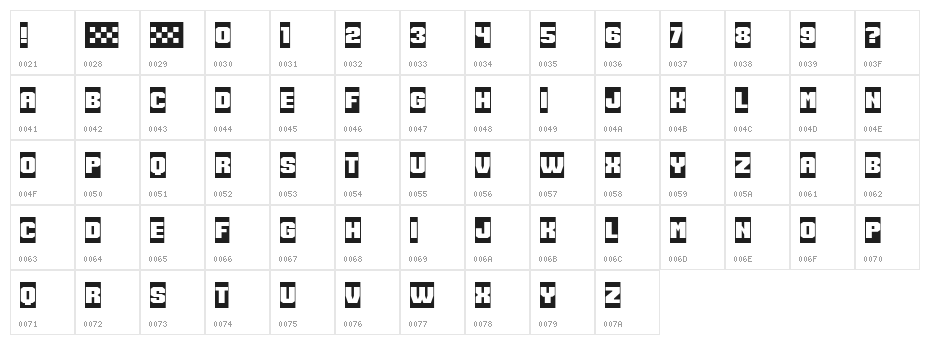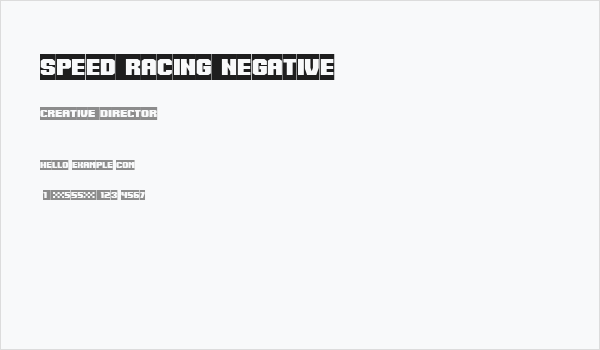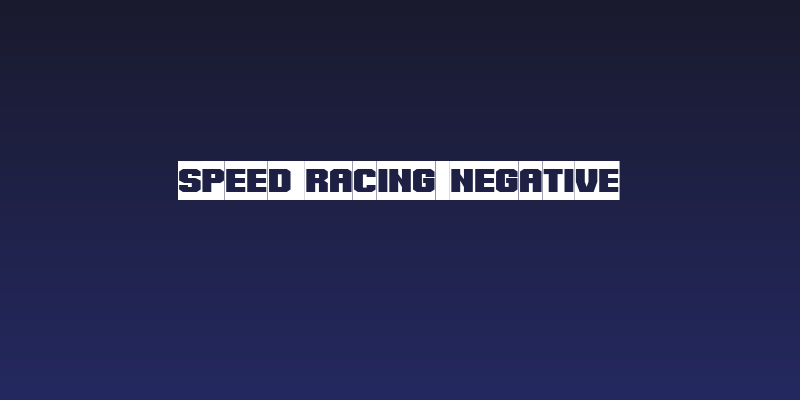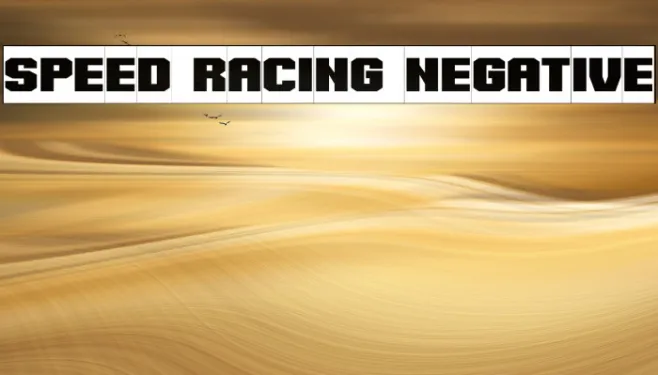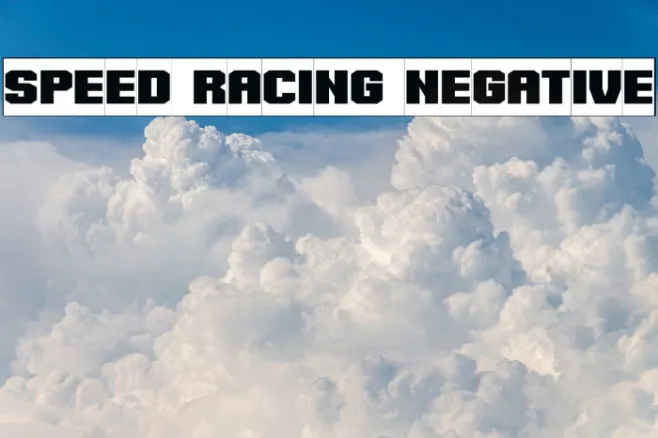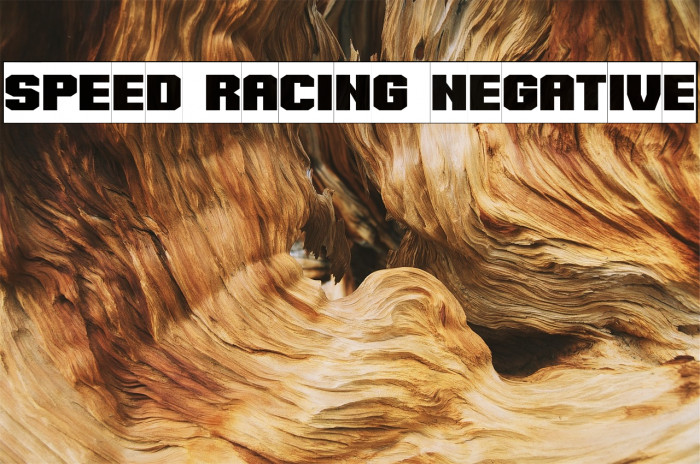
Speed Racing Negative Font
Speed Racing Negative Description
This font features a bold and blocky design with a strong geometric structure. The characters are uppercase and have a uniform width, creating a cohesive and impactful appearance. The style is reminiscent of racing or sports themes, with sharp angles and a sense of speed and motion. The numbers and special characters maintain the same boldness and geometric consistency, making them stand out effectively. The font's high contrast between the thick strokes and the negative space enhances its readability and visual impact.